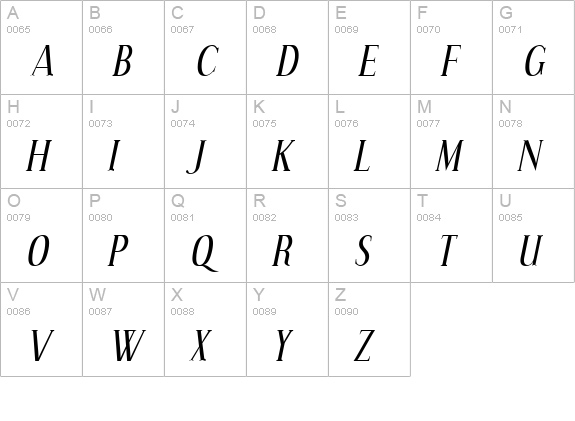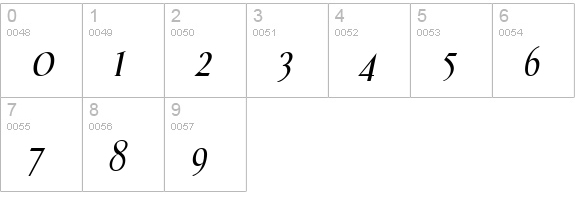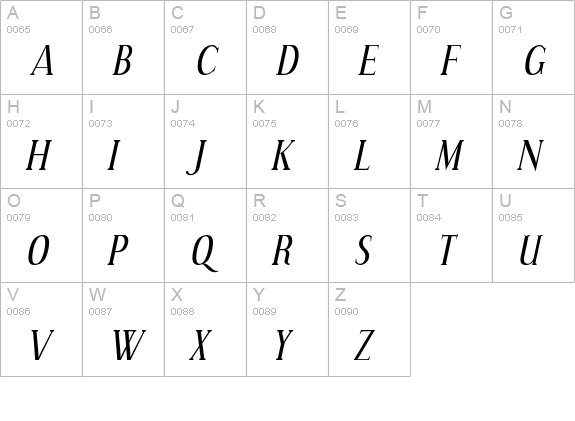
Effloresce Italic is a distinctive, italic variant in the Effloresce typeface family \xE2\x80\x94 well suited to design and typography projects.
Effloresce Italic font, with its delicate and graceful curves, is a true embodiment of elegance and sophistication. This exquisite typeface effortlessly captures the essence of a blossoming flower, with its soft and flowing strokes that seem to dance across the page. The slender and slanted letterforms create a sense of movement and fluidity, adding a touch of dynamism to any design. Effloresce Italic font is a perfect choice for those seeking a unique and refined look for their projects. Whether it's for invitations, branding, packaging, or editorial design, this font will elevate your creations to new heights. The italic style adds a touch of flair and personality, making it ideal for adding a touch of sophistication to any design. One of the most remarkable aspects of Effloresce Italic font is that it is free! Yes, you read that right - this exceptional font is freely available to download at FontsMarket.com. This means that you can bring a touch of elegance and refinement to your projects without breaking the bank. Whether you're a professional designer or a hobbyist, this font is a fantastic addition to your typographic arsenal. With its remarkable combination of beauty and accessibility, Effloresce Italic font is a true gem in the world of typography. Its versatility and timeless appeal ensure that it will remain a popular choice for designers for years to come. So why wait? Head over to FontsMarket.com and download this incredible font today. Let Effloresce Italic font be the catalyst for your creative endeavors and watch as your designs effloresce with beauty and grace.